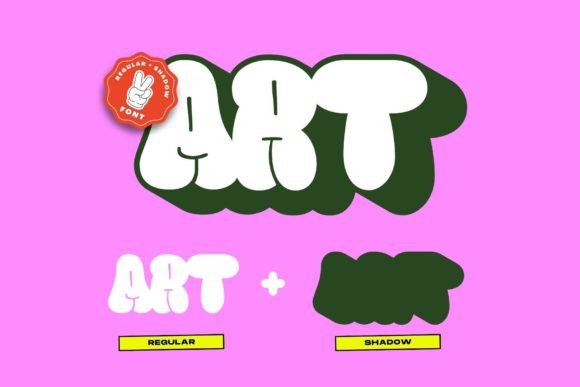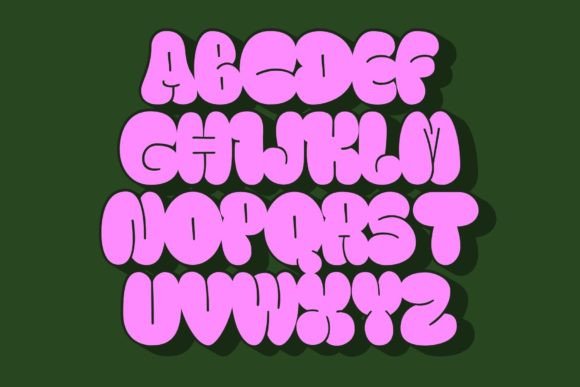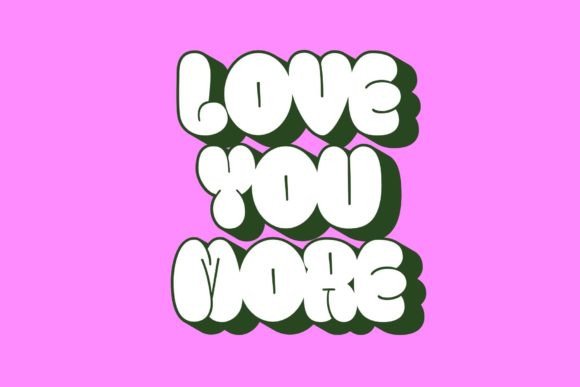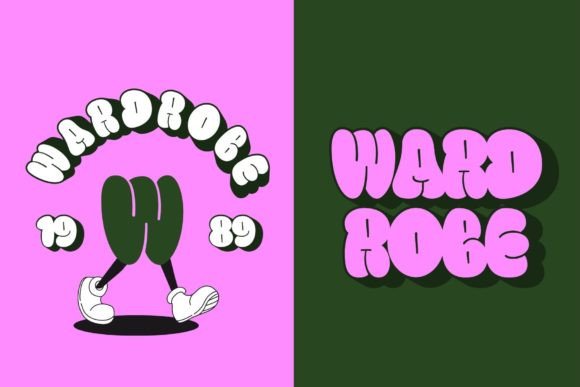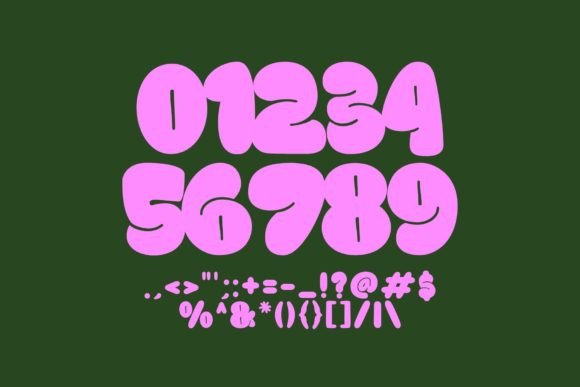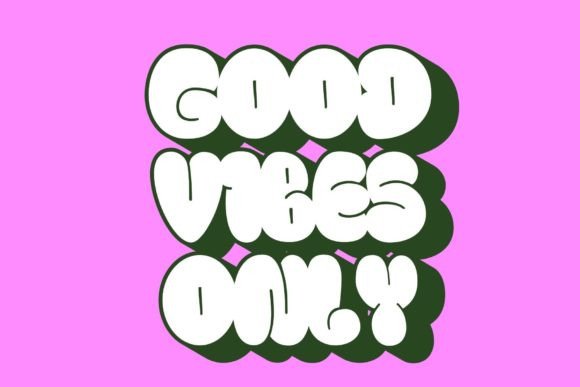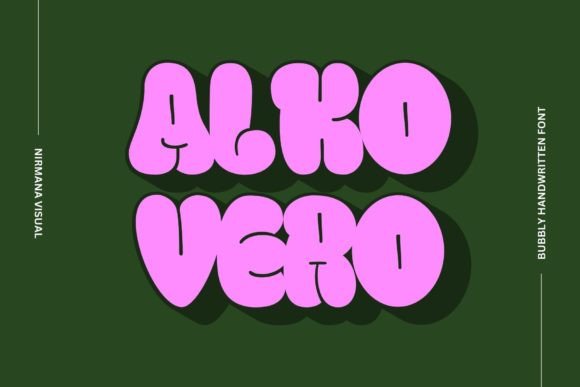
Introducing Alko Vero Font: A Retro Revival for Your Designs
I’ll never forget the time I was working on a project for a client who wanted a vintage-inspired logo. I spent hours scouring the internet for the perfect font, but nothing seemed quite right. That was until I stumbled upon a font that transported me back to the groovy typography of the 60s and 70s. It was love at first sight! I’m excited to share with you a similar font that’s sure to bring a touch of retro charm to your designs: Alko Vero Font.
What Makes Alko Vero Font Special?
Alko Vero Font is a retro-style font designed to evoke nostalgia and fun. Its bold and playful design features thick and rounded letterforms, playful curves, and a distinctly retro feel. This font is perfect for creating eye-catching designs that stand out from the crowd. Whether you’re looking to create a vintage logo, a retro poster, or a fun social media post, Alko Vero Font is sure to deliver.
Here’s what I love about Alko Vero Font:
• ✨ Retro charm: Alko Vero Font has a unique, retro feel that’s sure to transport your designs back to the good old days.
• ✅ Versatility: This font comes in a variety of weights, making it suitable for a wide range of projects, from branding and packaging to posters and social media graphics.
• ✅ Legibility: Alko Vero Font is incredibly legible, even at small sizes, making it perfect for use in a variety of contexts.
• ✅ Full character set: This font includes a full set of upper and lowercase letters, numerals, punctuation marks, and special characters, giving you everything you need to create stunning designs.
And here are a few quirks to keep in mind:
• 🤔 Limited use in formal contexts: Due to its playful, retro nature, Alko Vero Font may not be the best choice for formal or professional designs, such as corporate reports or academic papers.
• ⚠️ Overuse can be overwhelming: While Alko Vero Font is stunning on its own, using it excessively can be overwhelming. Balance is key when incorporating this font into your designs.
The Story Behind Alko Vero Font
Alko Vero Font was inspired by the groovy typography of the 60s and 70s. Our design team wanted to create a font that would transport designers back to a bygone era, when life was a little more carefree and a lot more colorful. With its bold, playful design and distinctly retro feel, Alko Vero Font is the perfect way to add a touch of nostalgia to your designs.
What type of projects is Alko Vero Font best suited for? Alko Vero Font is perfect for a wide range of projects, including branding and packaging, posters and social media graphics, logos, and more.
Is Alko Vero Font available in different weights? Yes, Alko Vero Font comes in a variety of weights, making it versatile and suitable for a range of design applications.